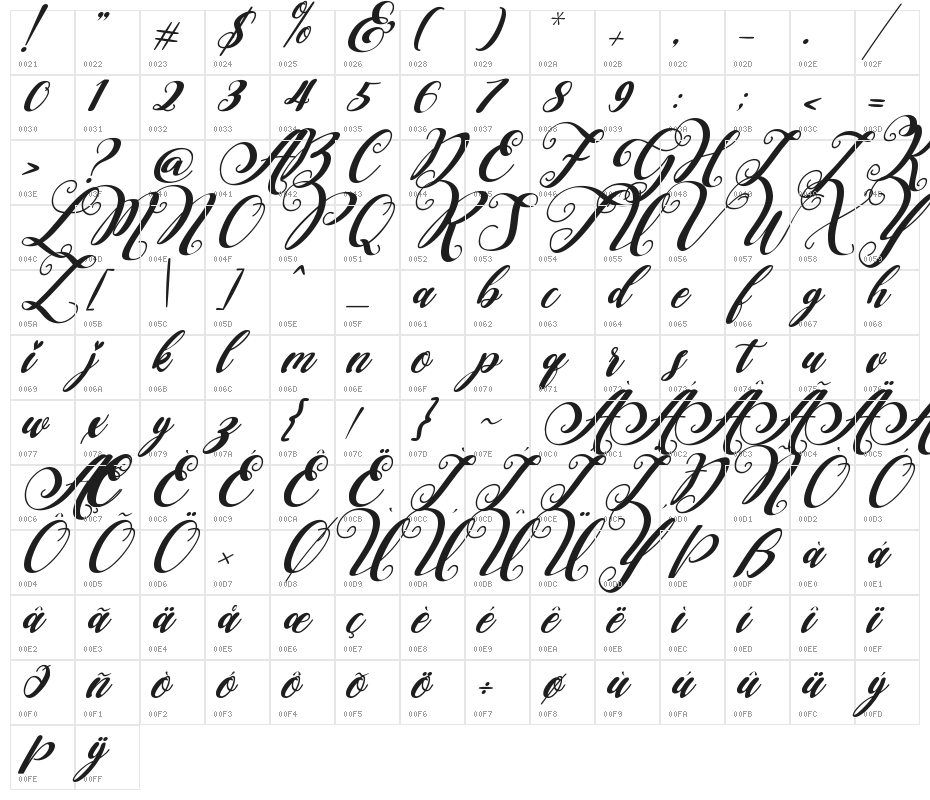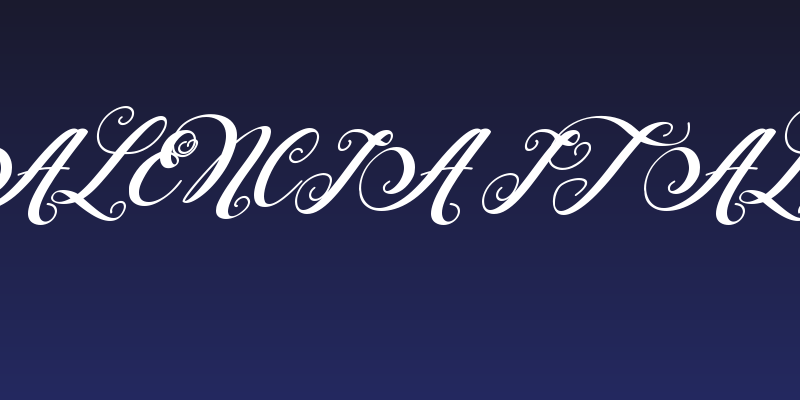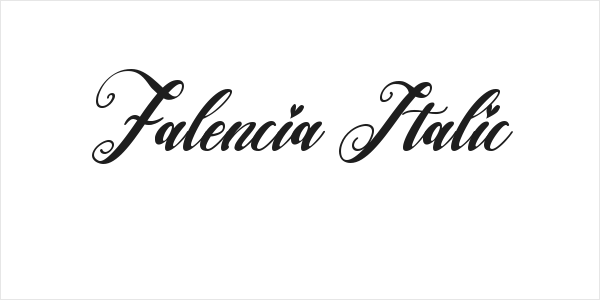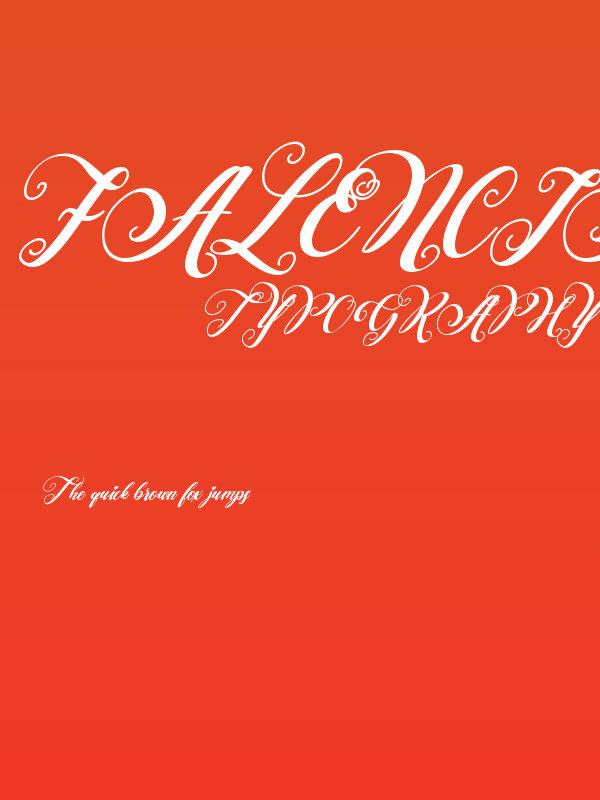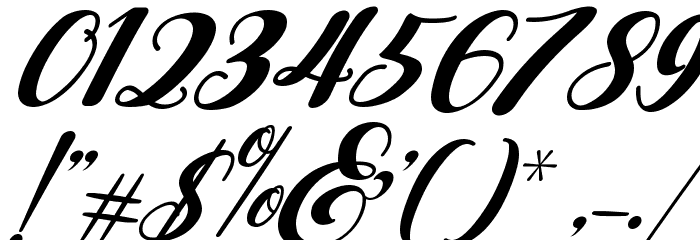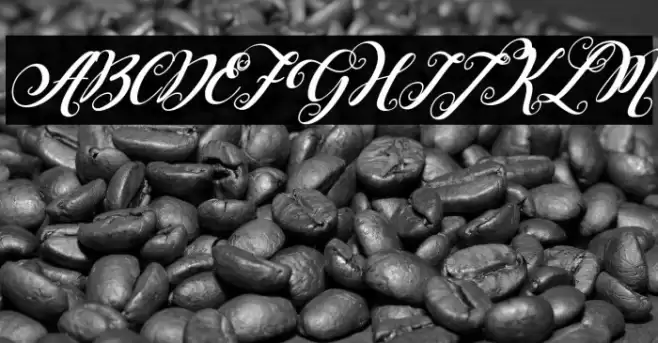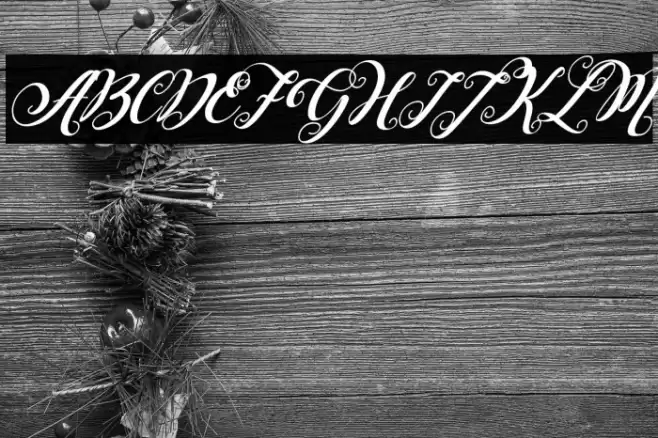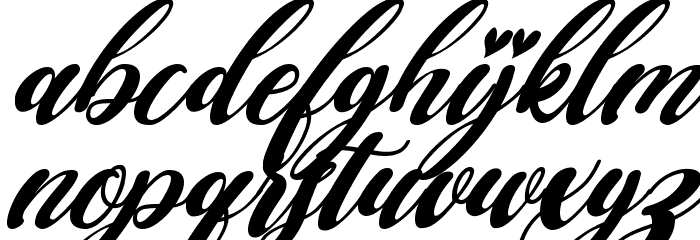
Falencia Italic Font
Falencia Italic Description
This font exudes elegance and sophistication with its flowing, cursive style. The characters are intricately designed with elaborate swirls and flourishes, giving it a luxurious and artistic feel. The uppercase letters are particularly ornate, featuring loops and curves that add a touch of grandeur. The lowercase letters maintain a consistent flow, enhancing readability while preserving the decorative nature. The numerals and special characters are equally stylized, ensuring a cohesive appearance throughout. This font is perfect for projects that require a touch of elegance and creativity, such as wedding invitations, luxury branding, or artistic posters.
| Use Case | Logos, Invitations, Decorative text |
| Proposed Projects | Ideal for wedding invitations, luxury branding, artistic posters, and elegant stationery. |